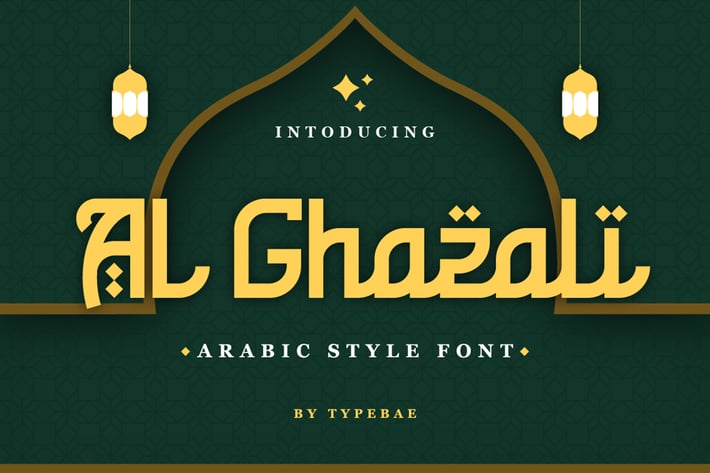
Al Ghazali - Arabic Style Font
Typebae
Al Ghazali is a beautiful display font with an Arabic style. This font adds an authentic Middle Eastern touch to any text, making it perfect for design projects that require a unique and cultural aesthetic.
Uppercase and Lowercase letters
Stylistic Alternates
Numbering and Punctuations